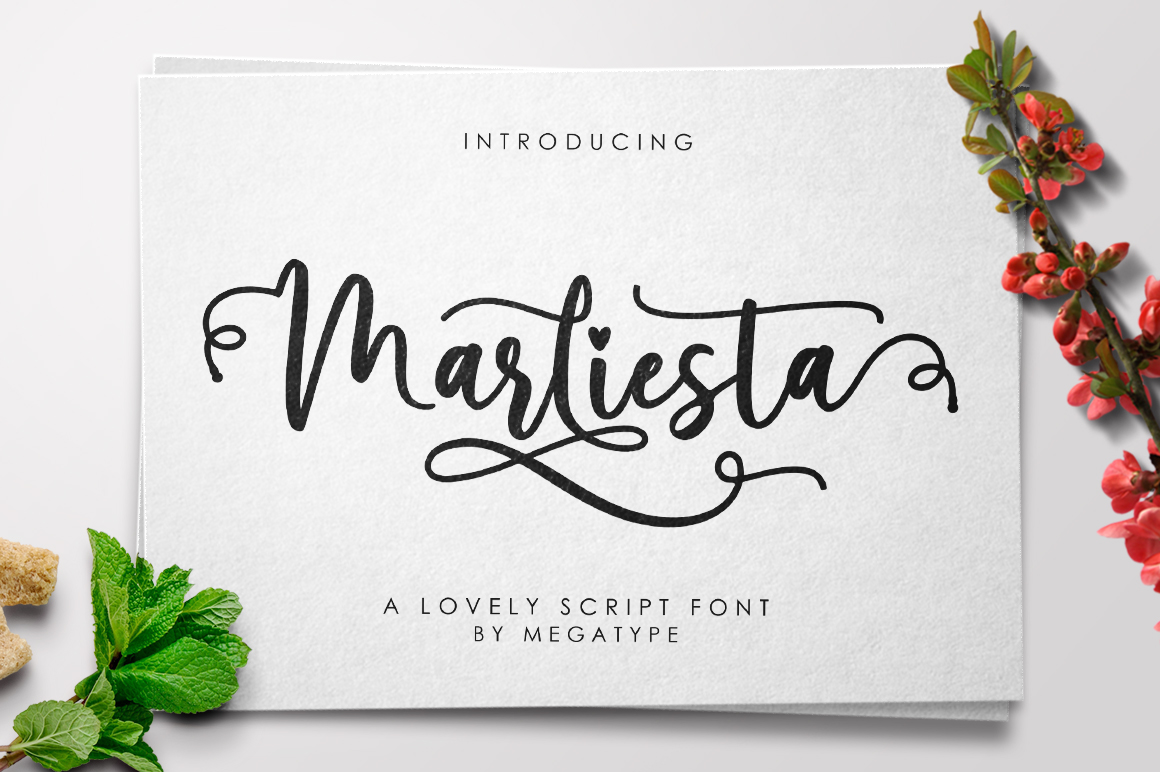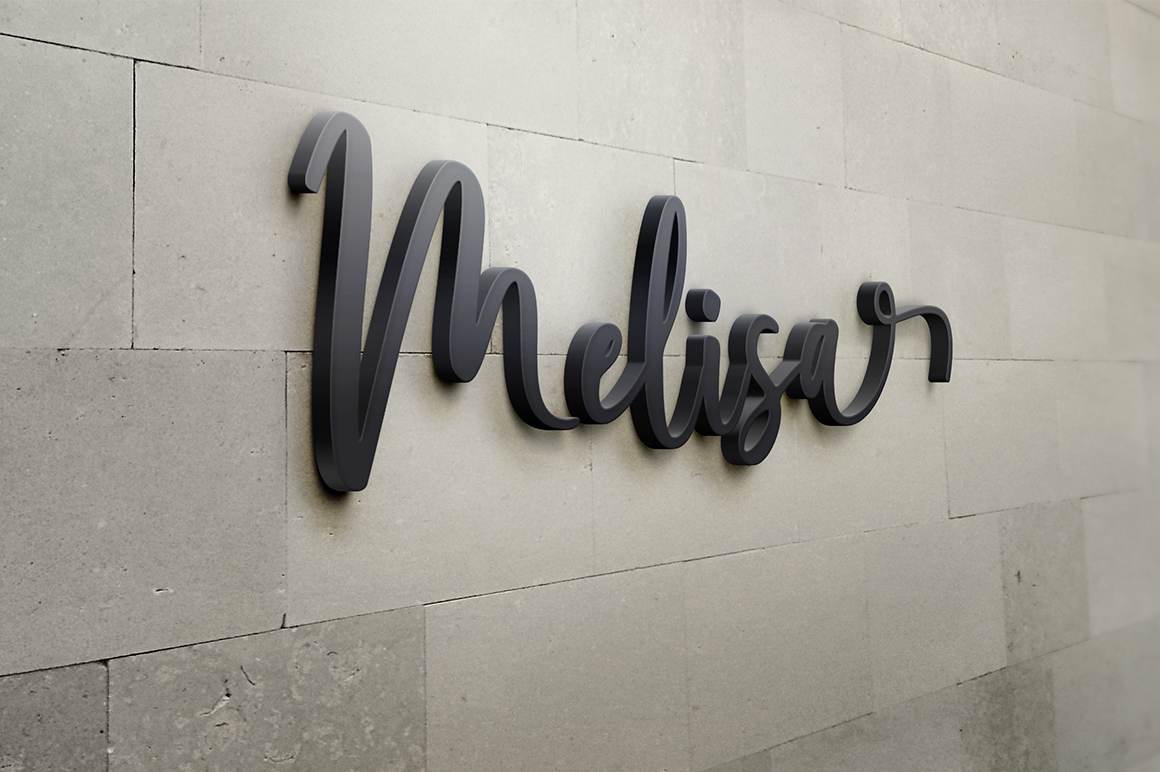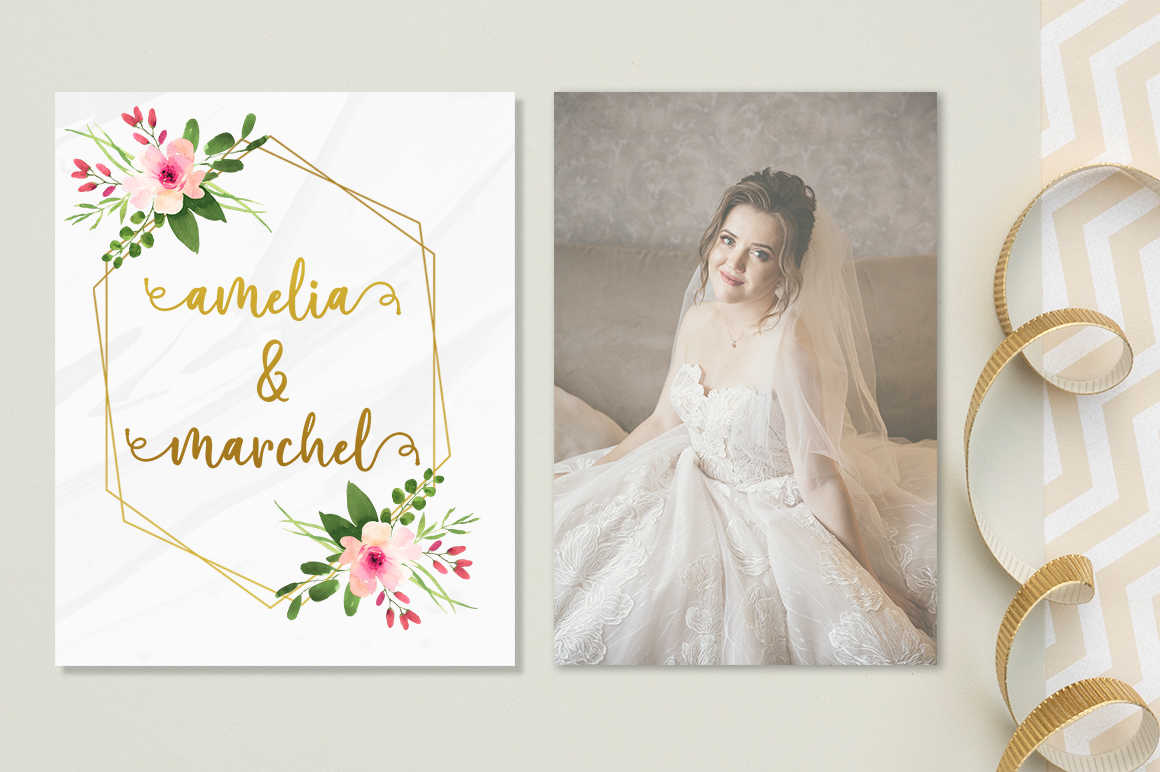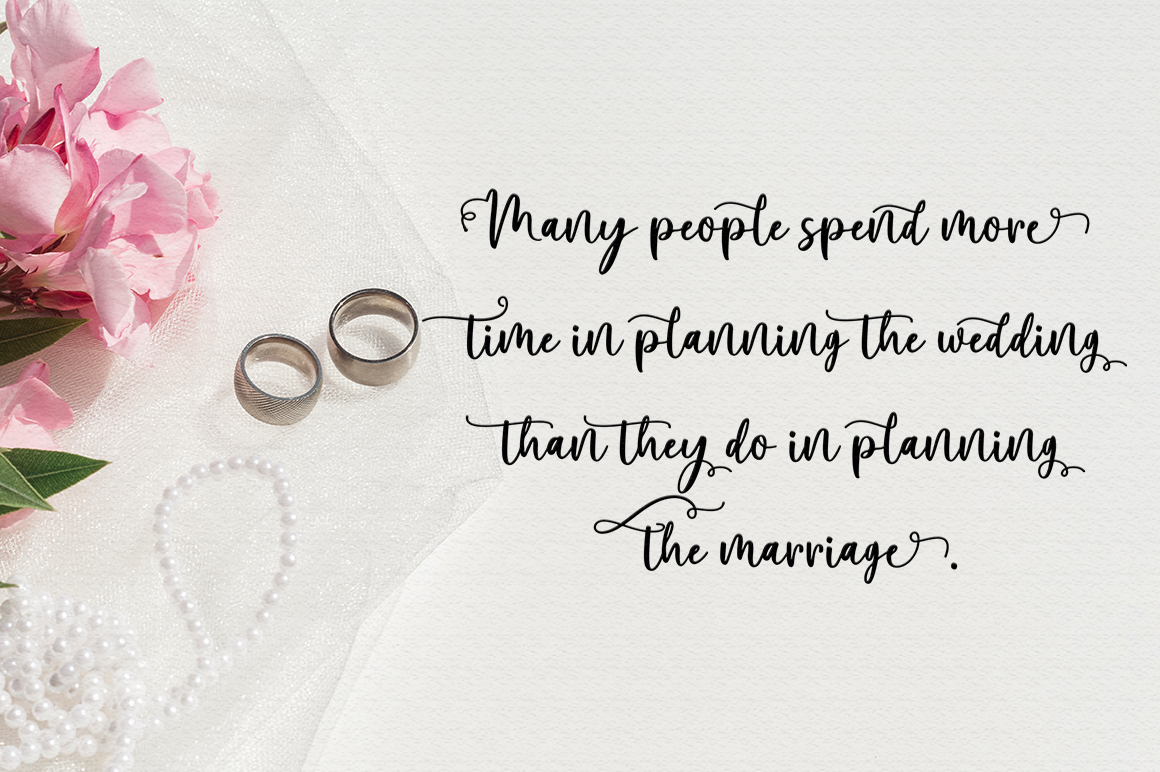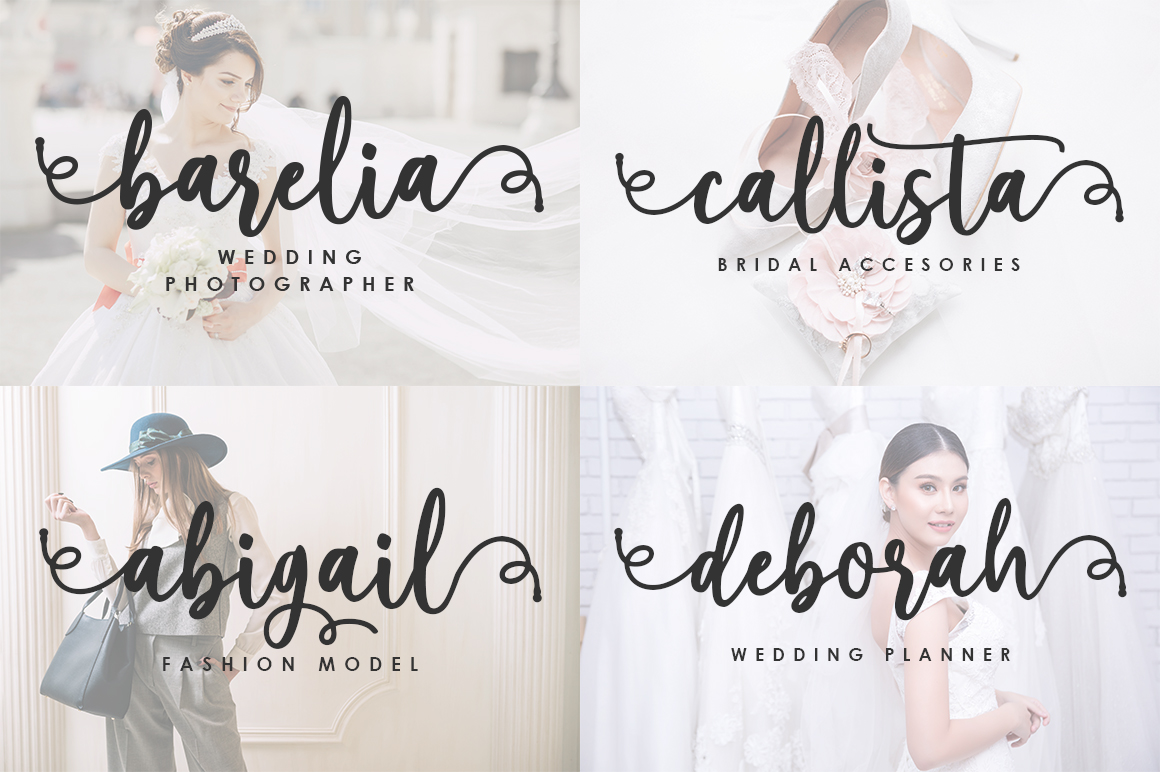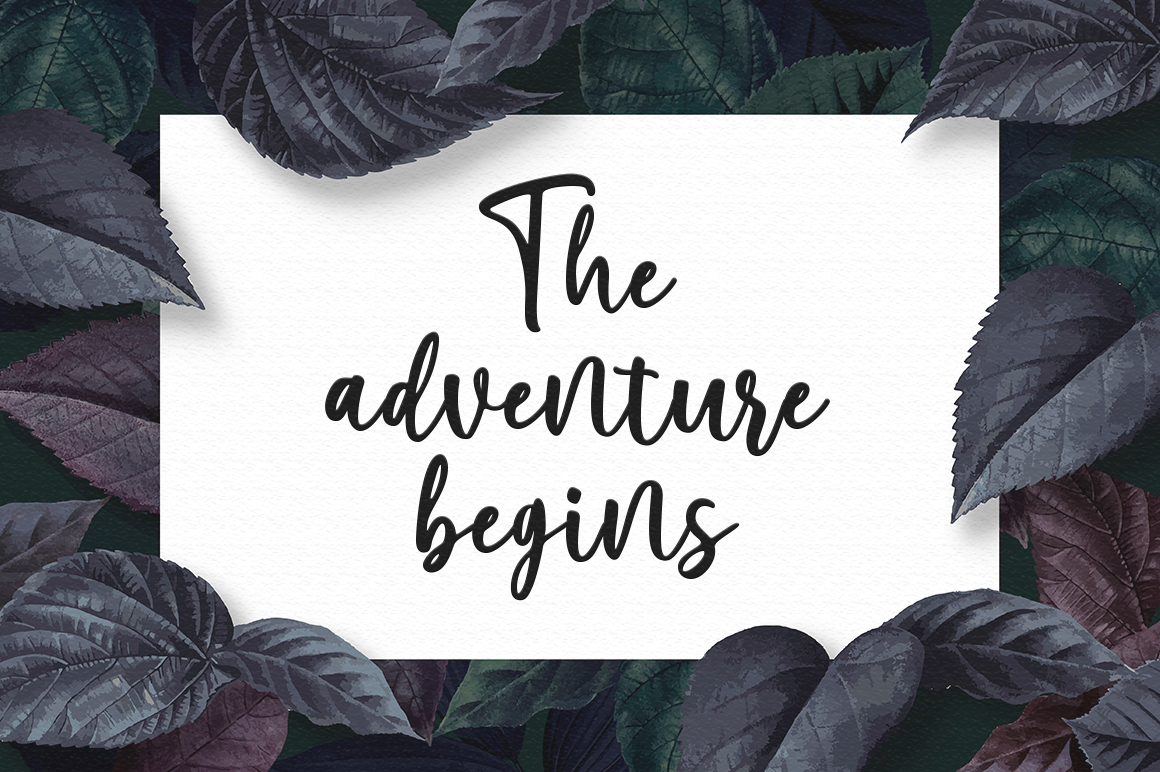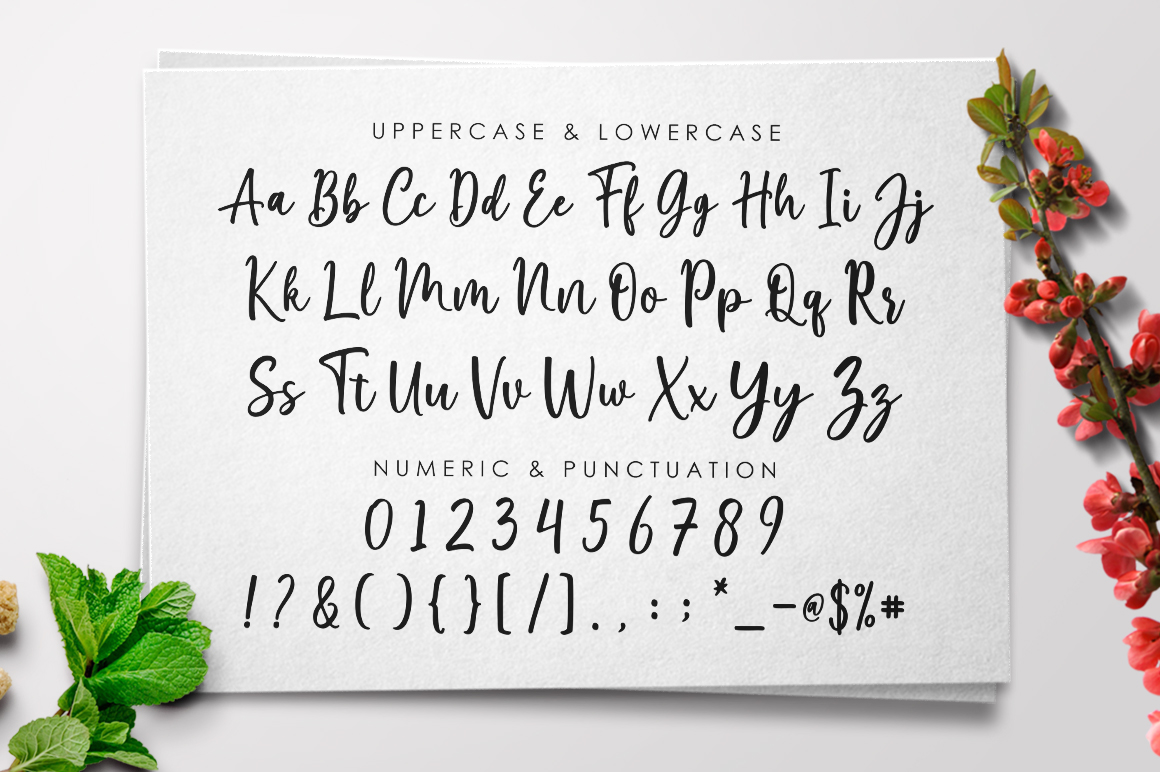
Marliesta Script is a lovely script font created with a brush and ink, it’s bold with an irregular baseline. This font is casual and pretty with swashes. Can be used for various purposes. such as logo, product packaging, wedding invitations, branding, headlines, signage, labels, signature, book covers, posters, quotes and more.
Marliesta Script features OpenType stylistic alternates, ligatures and International support for most Western Languages. To enable the OpenType Stylistic alternates, you need a program that supports OpenType features such as Adobe Illustrator CS, Adobe Indesign & CorelDraw X6-X7, Microsoft Word 2010 or later versions.